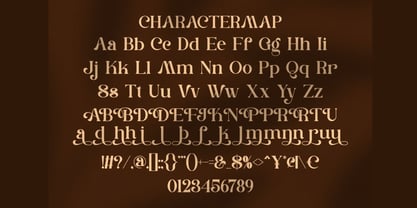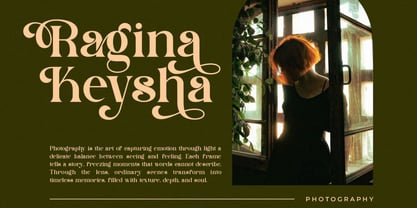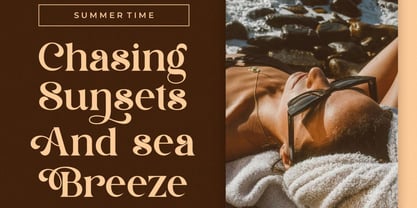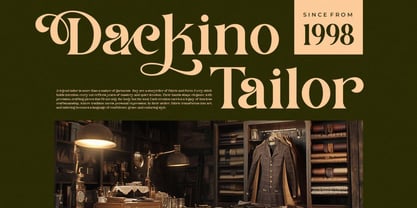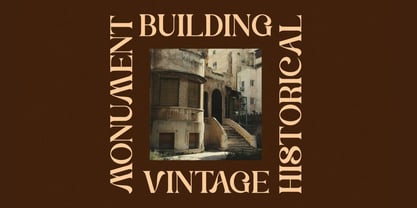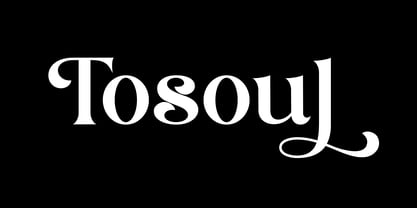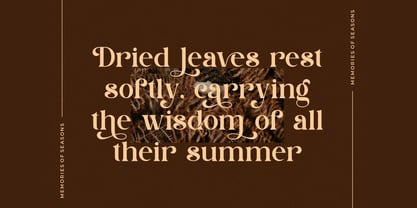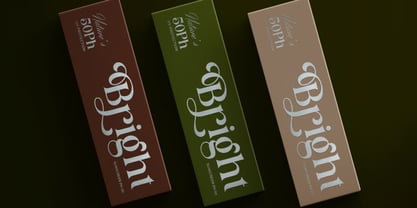
Tosoul
Tosoul is a vintage and classy serif font crafted to bring timeless sophistication, retro charm, and professional elegance to every creative project. Featuring smooth letterforms, refined serif details, and stylish ligatures, Tosoul captures the beauty of classic typography while maintaining a polished contemporary feel.
Inspired by vintage aesthetics and luxury branding, Tosoul offers a distinctive personality that helps designers create memorable and visually captivating designs. Its balanced proportions and elegant character structure make it ideal for projects that demand both style and readability.
Whether you're designing luxury logos, invitation cards, movie titles, book covers, product packaging, fashion branding, or editorial layouts, Tosoul delivers a refined typographic presence that enhances every composition with confidence and class.
Key Features:
• Vintage Classy Serif Design: Elegant typography inspired by timeless retro aesthetics.
• Stylish Ligatures: Beautiful character combinations for sophisticated typography.
• Uppercase & Lowercase Letters: Complete character set for versatile creative applications.
• Numbers & Punctuation: Essential glyphs for professional branding and editorial work.
• Smooth & Refined Letterforms: Carefully crafted for elegance and readability.
• Luxury Typography Style: Perfect for premium and high-end visual identities.
• Optimized for Print & Digital: Performs beautifully across all design platforms.
• Versatile Design Flexibility: Suitable for branding, publishing, advertising, and packaging.
Perfect For:
• Branding & Logo Design: Create strong, elegant, and memorable brand identities.
• Vintage & Luxury Branding: Perfect for premium products and sophisticated businesses.
• Invitation Cards & Stationery: Ideal for weddings, events, and special occasions.
• Movie Titles & Posters: Add cinematic charm and timeless beauty.
• Book Covers & Editorial Layouts: Enhance magazines, novels, and publishing projects.
• Business Cards & Corporate Design: Deliver a professional and stylish appearance.
• Fashion & Lifestyle Branding: Create refined visual identities with classic appeal.
• Social Media & Marketing Materials: Design elegant and engaging promotional content.
Bring timeless elegance to your creative projects with Tosoul—a vintage classy serif font featuring refined ligatures, smooth letterforms, and classic charm. Perfect for luxury branding, logos, invitations, movie titles, book covers, editorials, packaging, and sophisticated visual identities.